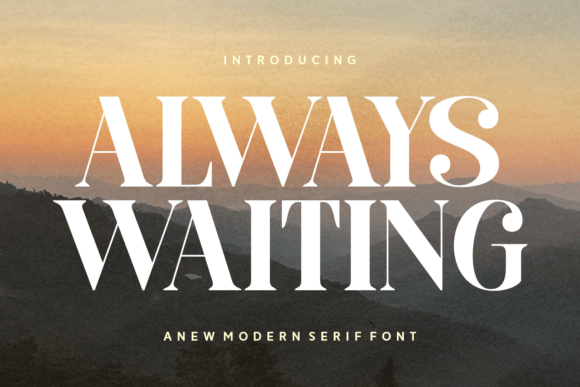
Introducing Always Waiting Font: The Epitome of Elegance and Sophistication
In the realm of typography, few fonts manage to convey the perfect blend of elegance, sophistication, and modernity. Always Waiting Font is one such exceptional typeface that has been meticulously crafted to exude refinement and luxury. With its high contrast strokes, sharp serifs, and graceful letterforms, Always Waiting is the ideal choice for luxury branding, editorial headlines, fashion magazines, and upscale packaging.
A Timeless Charm with a Bold Modern Presence
Always Waiting Font strikes a delicate balance between timeless charm and bold modernity. Its classic serif design is reminiscent of traditional luxury typography, while its sharp serifs and high contrast strokes infuse it with a contemporary edge. This harmonious blend of old and new makes Always Waiting an incredibly versatile font, suitable for a wide range of applications.
Key Features of Always Waiting Font
- High Contrast Strokes: The font’s high contrast strokes create a sense of drama and elegance, making it perfect for headlines and titles.
- Sharp Serifs: The sharp serifs add a touch of sophistication and refinement, lending an air of luxury to any design.
- Graceful Letterforms: The font’s letterforms are carefully crafted to exude a sense of fluidity and movement, making it a joy to read.
- Timeless Charm: Always Waiting Font’s classic design ensures that it will remain relevant for years to come, without ever looking dated.
- Bold Modern Presence: The font’s modern edge makes it perfect for designs that require a contemporary feel.
Luxury Branding and Always Waiting Font
When it comes to luxury branding, typography plays a crucial role in conveying the brand’s values and aesthetic. Always Waiting Font is specifically designed to meet the demands of luxury brands, offering a level of sophistication and elegance that is hard to match. Its refined design makes it perfect for:
- Logos: Create a lasting impression with a logo that exudes luxury and sophistication.
- Headings: Use Always Waiting Font to create stunning headings that capture the essence of your brand.
- Packaging: Elevate your packaging design with a font that screams luxury and refinement.
Editorial Headlines and Fashion Magazines
Always Waiting Font is also an excellent choice for editorial headlines and fashion magazines. Its bold modern presence and high contrast strokes make it perfect for:
- Headlines: Grab the reader’s attention with a headline that exudes elegance and sophistication.
- Subheadings: Use Always Waiting Font to create stunning subheadings that add depth and context to your story.
- Body Text: Although designed primarily for headlines, Always Waiting Font can also be used for body text, offering a level of readability and refinement that is unparalleled.
Upscale Packaging and Always Waiting Font
When it comes to upscale packaging, typography plays a vital role in communicating the brand’s values and aesthetic. Always Waiting Font is the perfect choice for:
- Luxury Product Packaging: Create packaging that exudes luxury and sophistication, perfect for high-end products.
- Brand Storytelling: Use Always Waiting Font to tell your brand’s story, creating an emotional connection with your customers.
- Label Design: Design labels that are both elegant and sophisticated, perfect for luxury food, beverage, or cosmetic products.
Why Choose Always Waiting Font?
With so many fonts available, why choose Always Waiting Font? Here are just a few compelling reasons:
- Uniqueness: Always Waiting Font offers a unique blend of elegance, sophistication, and modernity, making it stand out from the crowd.
- Versatility: The font’s versatility makes it suitable for a wide range of applications, from luxury branding to editorial headlines.
- Timelessness: Always Waiting Font’s classic design ensures that it will remain relevant for years to come, without ever looking dated.
Always Waiting Font is an exceptional typeface that exudes elegance, sophistication, and modernity. Its high contrast strokes, sharp serifs, and graceful letterforms make it perfect for luxury branding, editorial headlines, fashion magazines, and upscale packaging. With its timeless charm and bold modern presence, Always Waiting Font is an excellent addition to any designer’s font library.